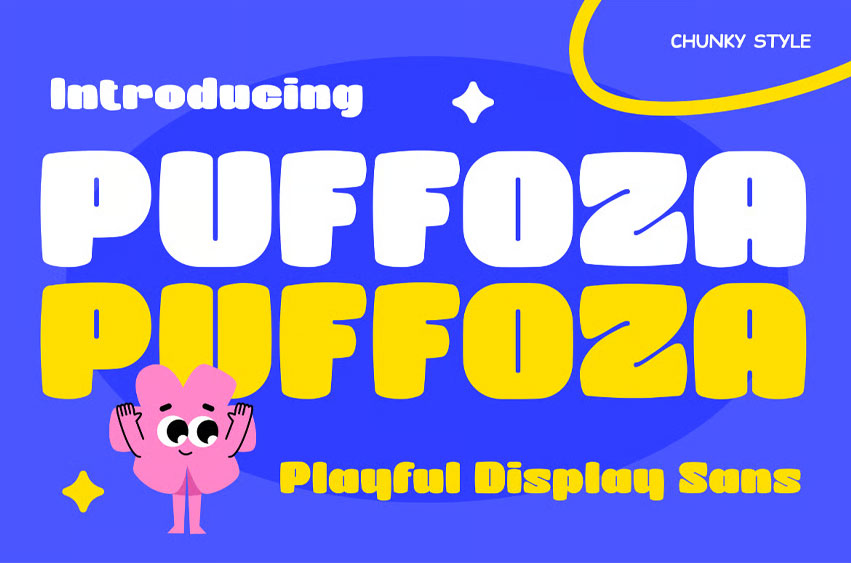
Puffoza Font is a fun, bubbly playful display font full of charm and energy. Its rounded, puffy letterforms radiate joy and creativity, making it the perfect typeface for designs that need to feel warm, friendly, and full of personality.
From children’s content to colorful branding and social media — Puffoza brings a smile to every project it touches.